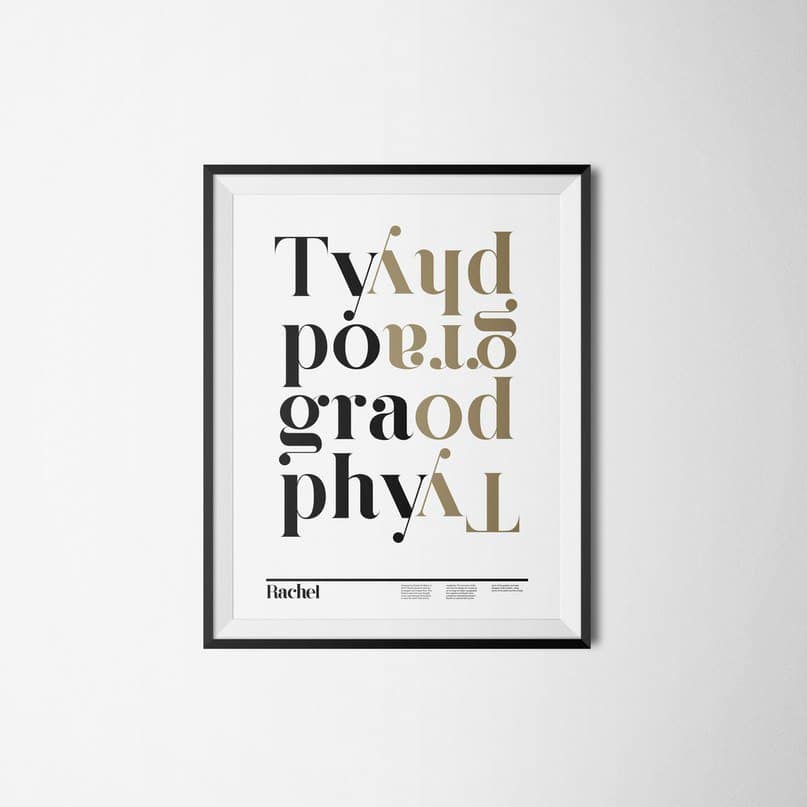
rachel
Unleash Creativity with Rachel Font
Rachel Font, crafted by the talented designer John Smith in 2023, is a refined typeface that combines modern elegance with a touch of charm. Ideal for a range of applications including web design, print media, and branding, this font brings sophistication to every project.
The Inspiration and Craftsmanship Behind Rachel Font
Rachel Font draws inspiration from classic serif styles, perfecting the art of readability while maintaining a contemporary aesthetic. This attention to detail speaks to John Smith’s dedication to creating functional yet beautiful typefaces for modern creatives.
Ideal Uses for Rachel Font
Whether you’re designing an elegant invitation, setting the tone for a chic website, or developing a brand identity, Rachel Font adapts perfectly across various mediums. Its versatility makes it a go-to choice for designers seeking a stylish yet practical solution.